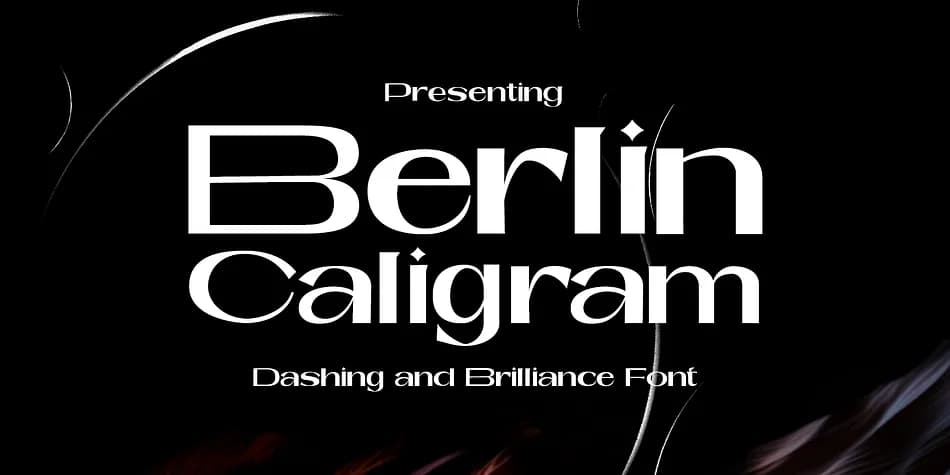
1 / 10About Berlin Caligram Font
Berlin Caligram by Genesislab is a decorative display font that brings formal elegance to design projects where true polish matters. The font's distinctive letterforms work beautifully for high-end applications: luxury wedding invitation suites, boutique cosmetics labels, upscale restaurant menus, and exclusive event programs all benefit from its poised character and refined approach. The typeface has enough personality to command attention without tipping into theatricality, making it a smart choice when you want to look established rather than trendy.
The design maintains excellent legibility even at display sizes, which is rare among decorative fonts. This quality makes it equally suited to digital and print work alike. Berlin Caligram includes both OTF and TTF formats and supports multiple languages, so you can deploy it across different projects and markets without compatibility concerns. The typeface strikes a balance between character and restraint, making it genuinely useful for precision-focused design work.
Berlin Caligram Font is a decorative font that shines as a display or heading face. Pair it with a clean sans-serif or serif font for body text β the contrast creates a clear hierarchy while the two styles stay balanced and easy to read.
Berlin Caligram Font